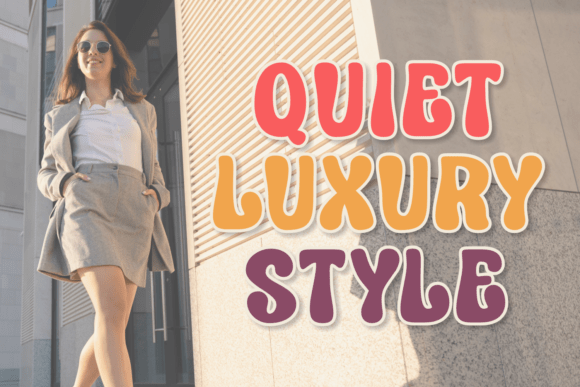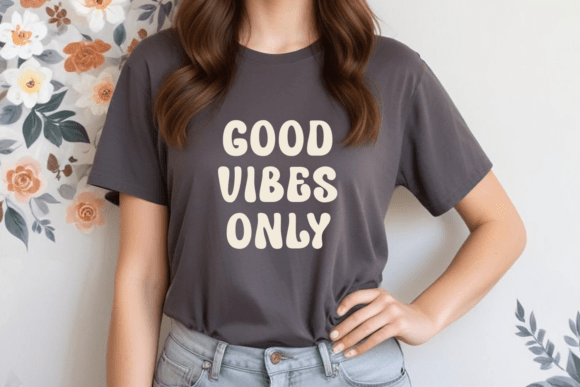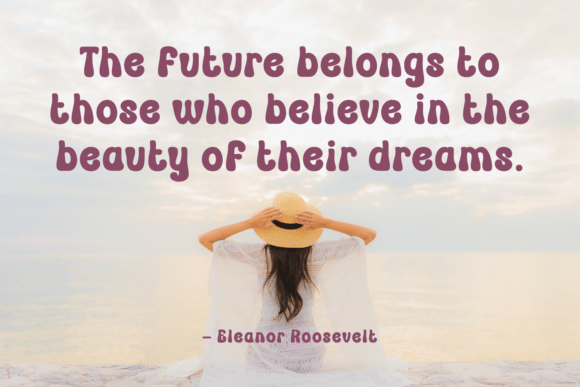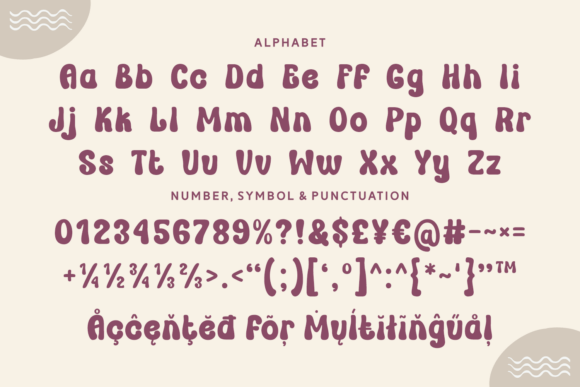
Introduction to Love Shore Font
Dive into the sweet, vibrant vibes of the 1960s and 70s with the Love Shore font, a delightful retro display typeface.
This charming Love Shore font is defined by its thick, soft, and curvy letterforms that bubble with fun and nostalgia, creating an immediate sense of playfulness and joy The unique construction is perfectly complemented by the soft, varied pastel color palette and sticker-like outline effect seen in the preview.
Key Features of Love Shore Font